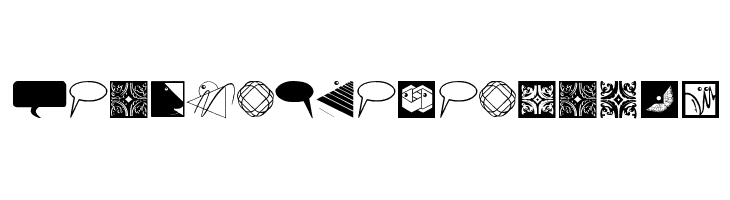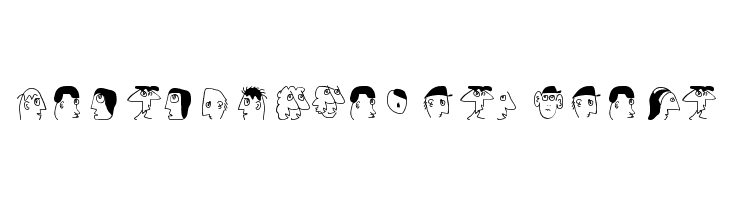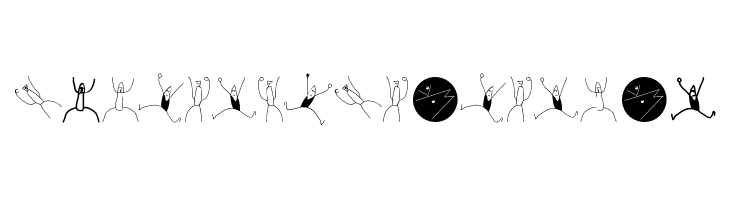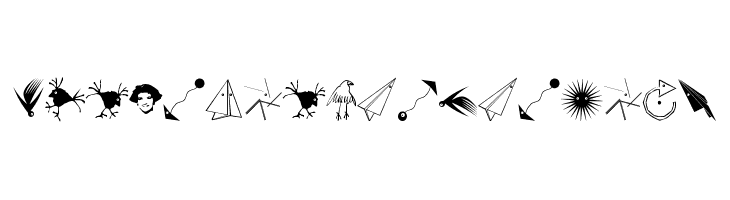
A pictorial, cartoon-style decorative font with unique illustrations for each character.
A decorative font with each character as a unique face illustration.